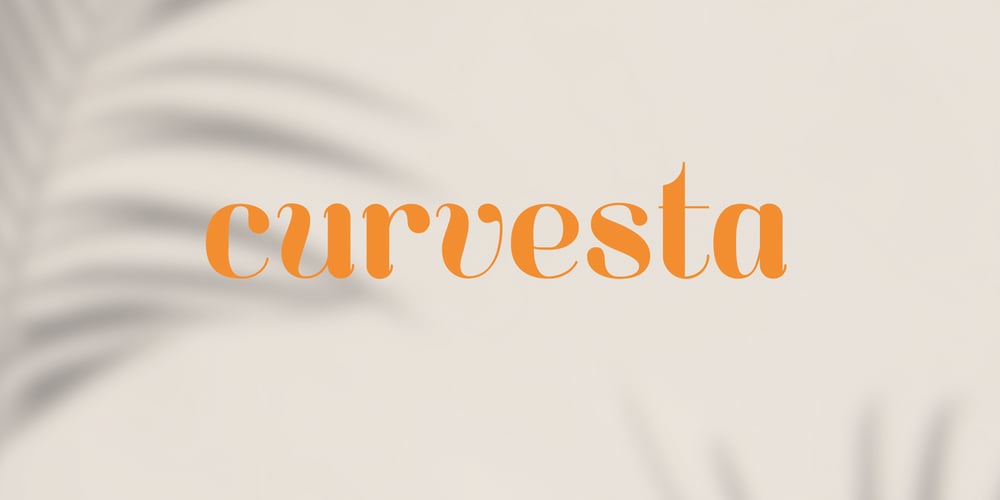
Curvesta Font Family was designed by Adam Greasley and published by wearecolt. Curvesta contains 1 styles and family package options. Combining classic serifs with curvy features, the Curvesta poster/display font has lots to offer. A real modern classic.